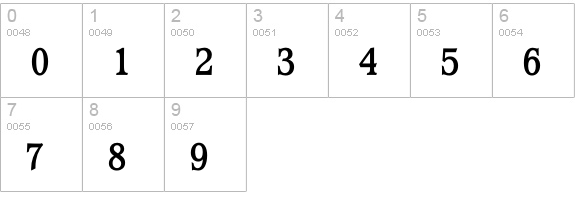
WaverlyBoldCondensedTab Font Details
WaverlyBoldCondensedTab font is a striking and modern typeface that exudes confidence and boldness. Its condensed design adds a touch of elegance and sophistication to any design project. With its clean lines and sharp edges, this font is perfect for creating eye-catching headlines, logos, and branding materials. This font boasts a strong and powerful presence, making it ideal for projects that require a commanding statement. Its bold weight ensures readability and legibility, even at smaller sizes. Whether you are designing a magazine layout, a website header, or a promotional poster, WaverlyBoldCondensedTab font will make your text stand out and grab attention. One of the best features of WaverlyBoldCondensedTab font is that it is available for free. Yes, you read that right! This incredible font can be freely downloaded at FontsMarket.com. This means that you can enjoy the benefits of this remarkable typeface without having to spend a dime. FontsMarket.com is a trusted platform that offers a vast collection of high-quality fonts, and WaverlyBoldCondensedTab font is just one of the many gems you can find there. So, why not take advantage of this amazing opportunity to enhance your designs with a stunning font that is not only visually appealing but also free to use? Don't miss out on the chance to elevate your creative projects with the WaverlyBoldCondensedTab font. Download it now from FontsMarket.com and let your designs speak volumes with its boldness and elegance.